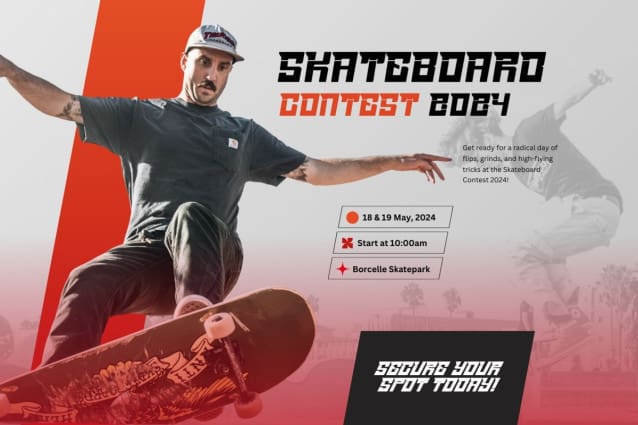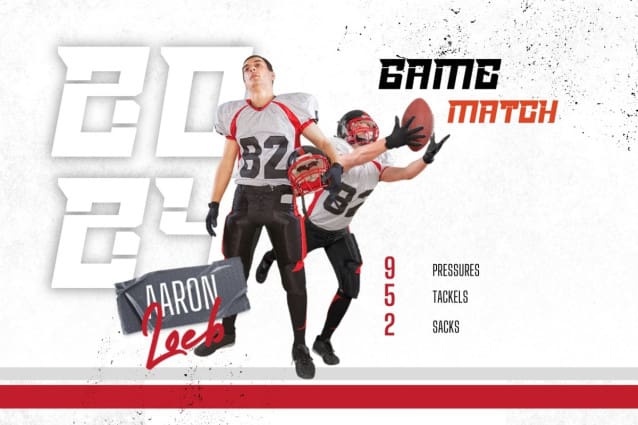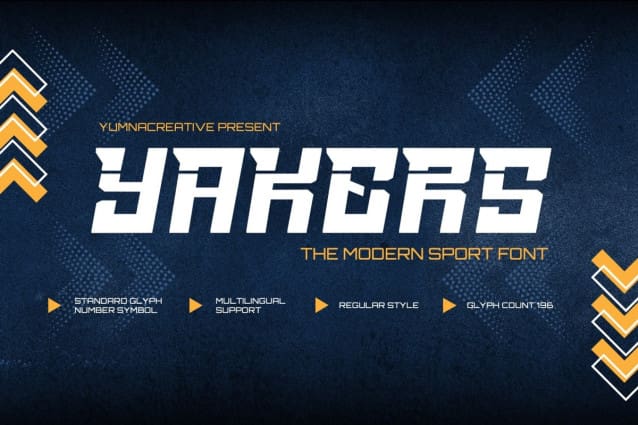
Yakers Futuristic Font
Yakers Futuristic Font, this bundle features strong, confident and powerful typefaces designed to work great with sports logos, club branding, apparel applications, labels and more.